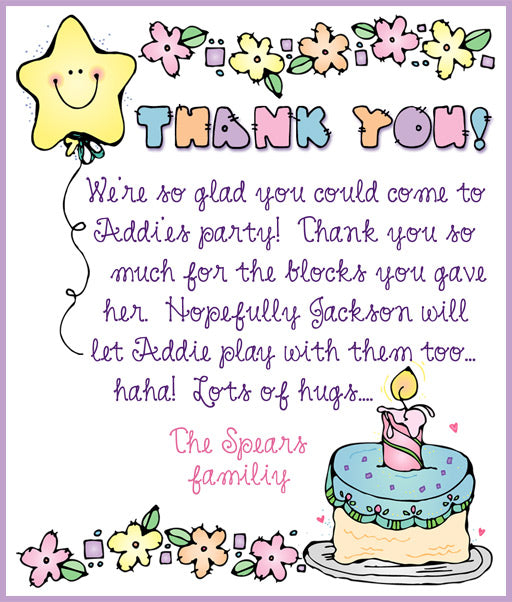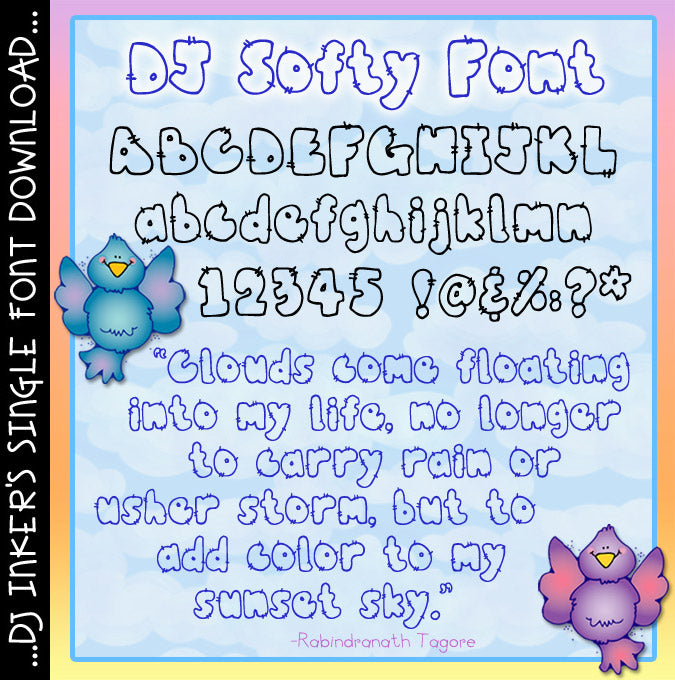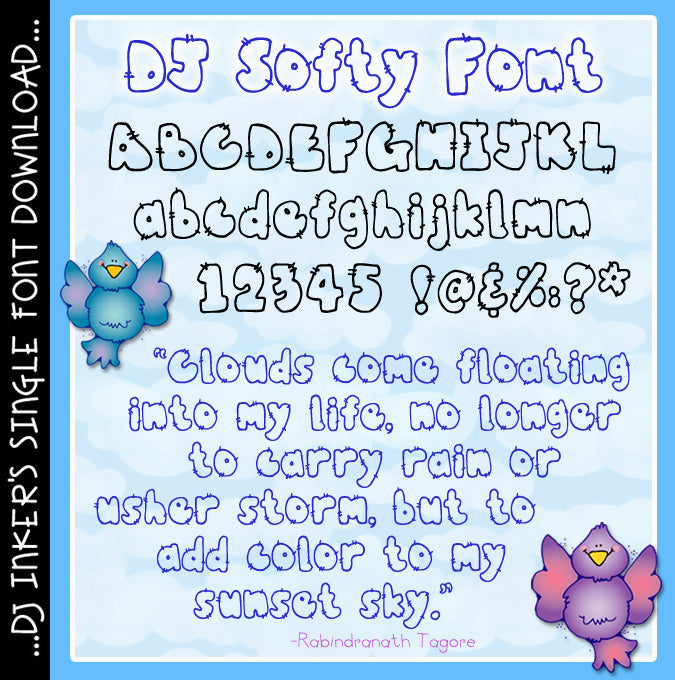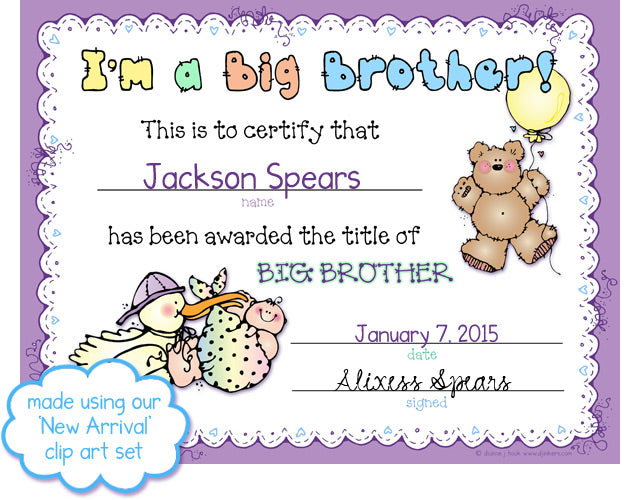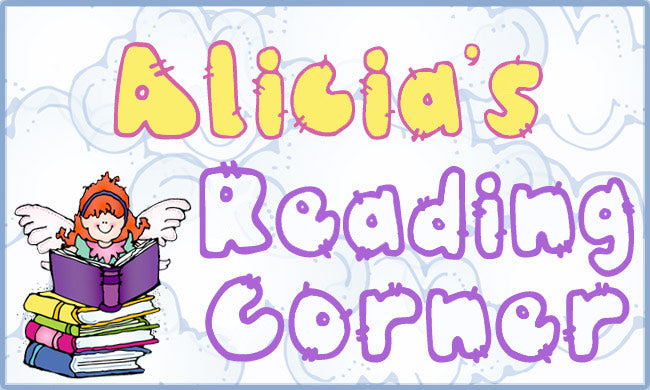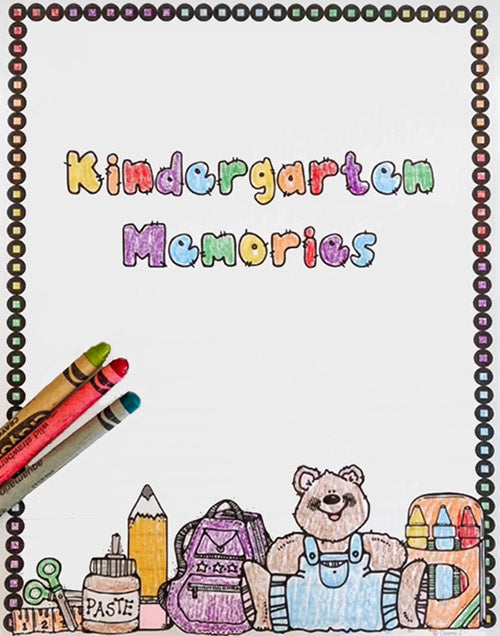
DJ Softy Font - Puffy Cloud Lettering Download
Let your imagination play in the clouds when you type with this soft &
fluffy lettering by DJ Inkers. Our DJ Softy font is perfect for any cute
project or occasions for babies, pets, kids, flowers, birthdays & more.
Snuggle up and create a smile today!